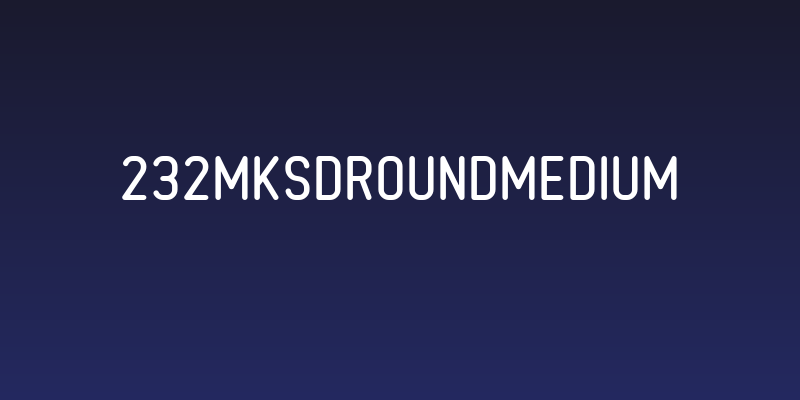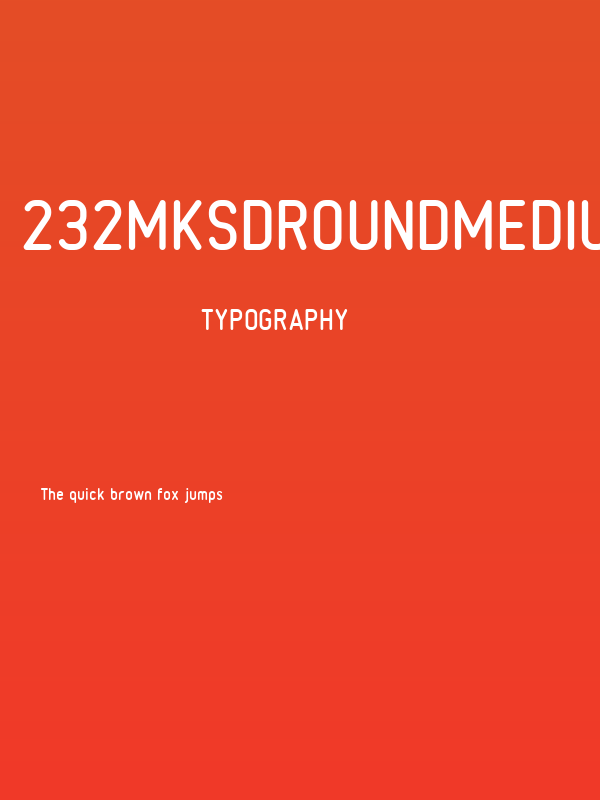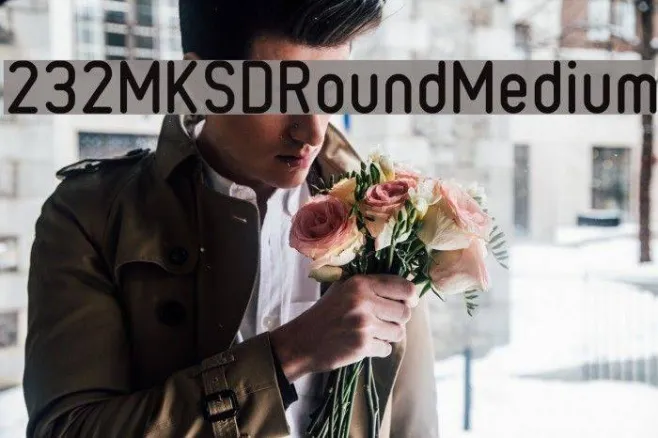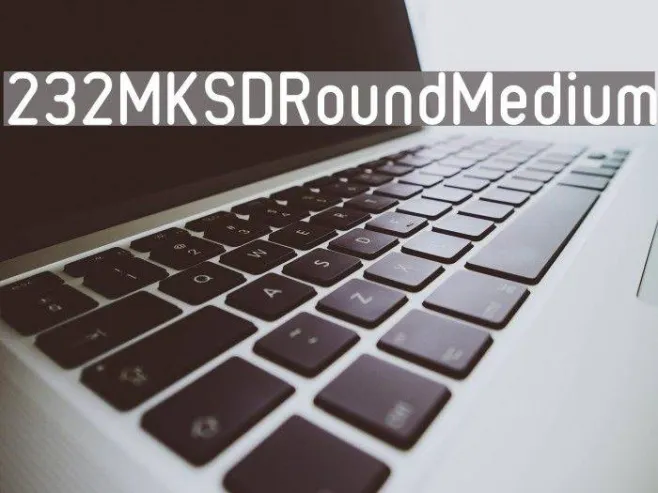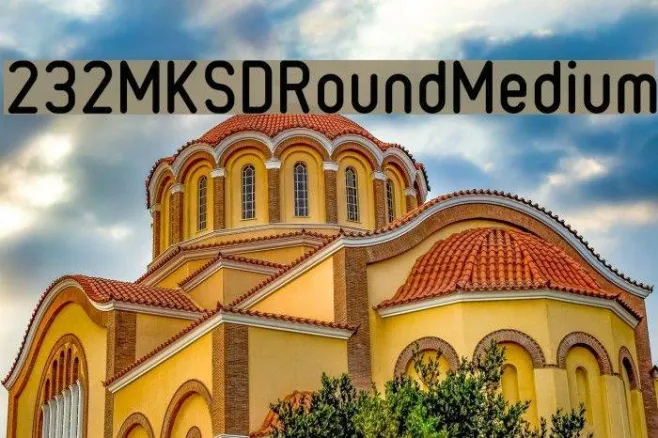
232MKSDRoundMedium Font
232MKSDRoundMedium Description
This font features a modern and clean design with rounded edges, giving it a friendly and approachable appearance. The characters are uniform in width, contributing to a balanced and harmonious look. The uppercase and lowercase letters are well-proportioned, with a consistent stroke weight that enhances readability. The numerals are clear and distinct, making them suitable for various applications. Special characters are included, maintaining the font's cohesive style. Overall, this typeface is versatile and can be used in both digital and print media.
| Proposed Projects | Ideal for branding, web design, user interfaces, and educational materials. |